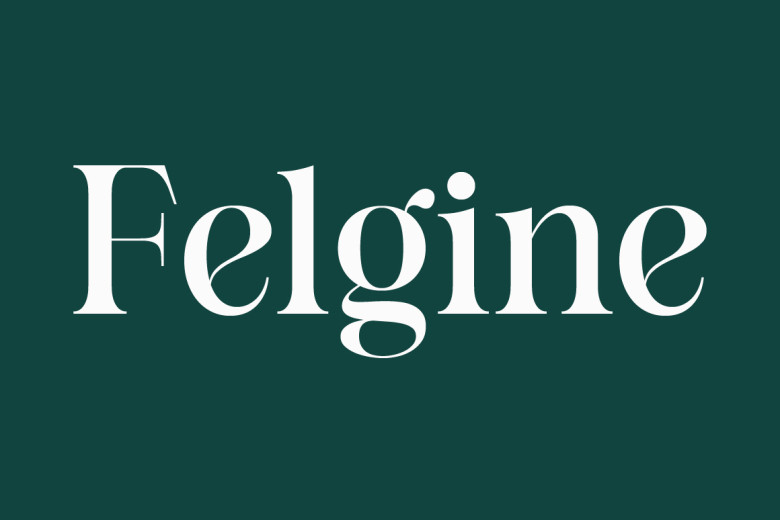
Felgine Font
Felgine is a modern serif display font with a striking contrast and optional ligatures, ideal for projects with fashion themes like magazine covers, logos and titles. Now available from multiple font families when using Felgine.
Felgine Ligature Serif Font